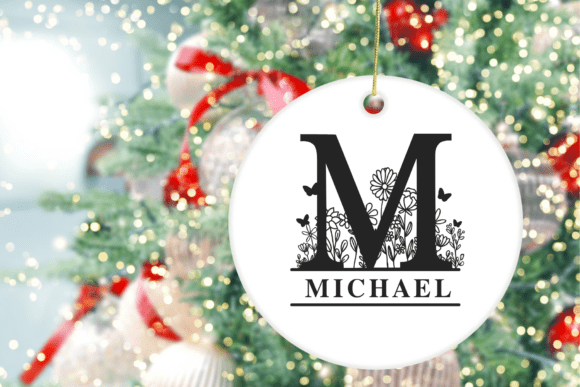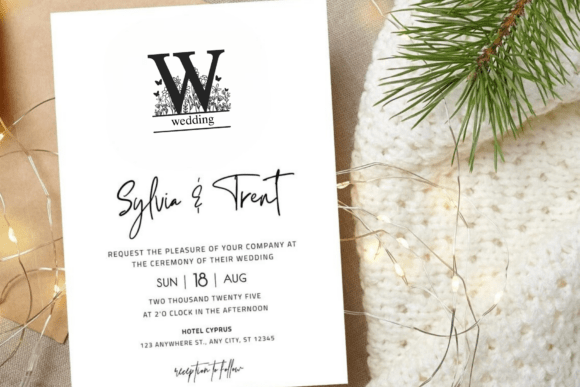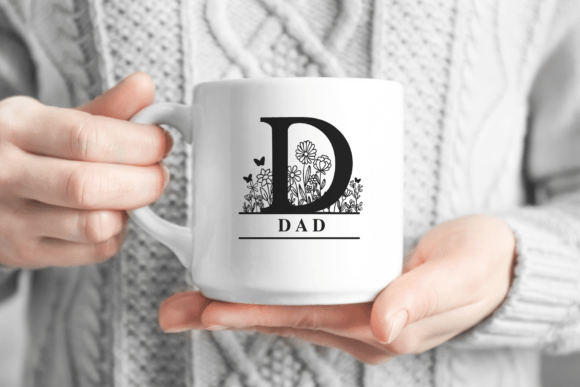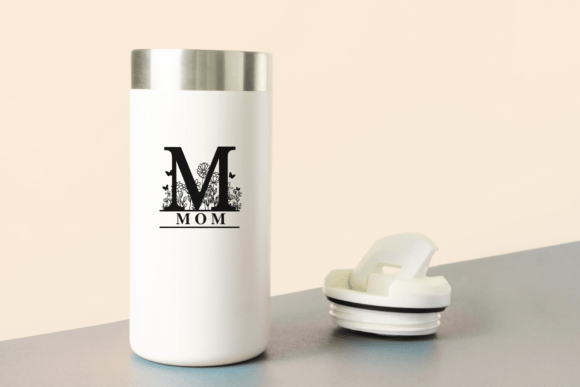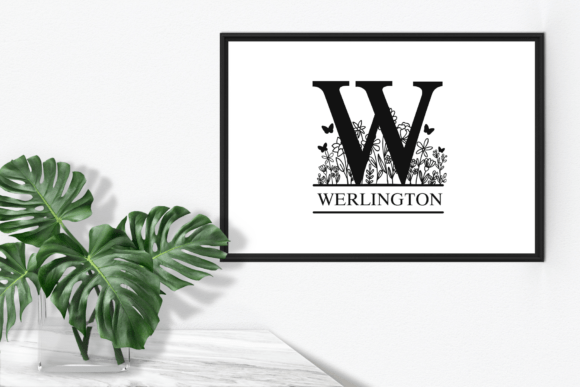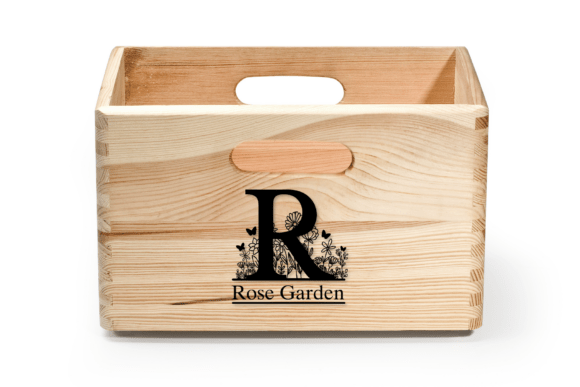
Introduction to Floral Spring Monogram Font
Floral Spring Monogram is a refined and minimalist monogram font that combines the elegance of classic serif letterforms with flowers and butterfly.
Each uppercase letter is thoughtfully designed to deliver a luxury feel with subtlety and modern flair Ideal for premium branding, high-end packaging, custom initials, and chic wedding designs.